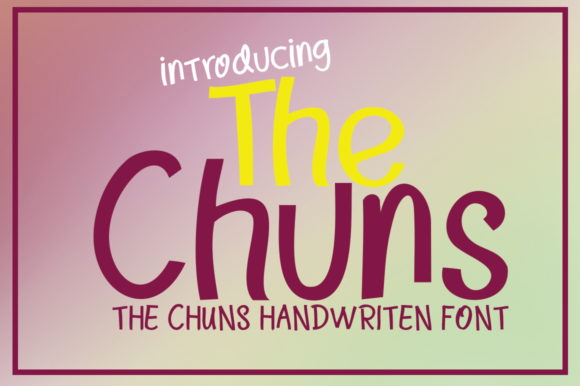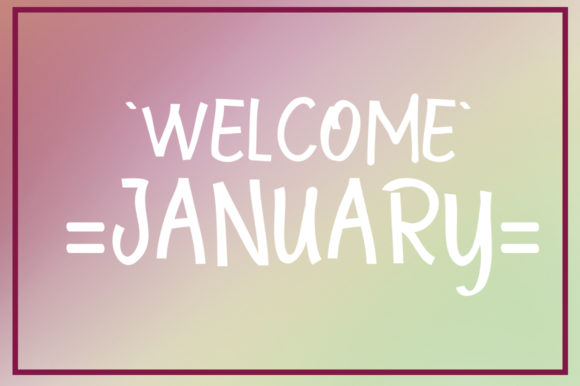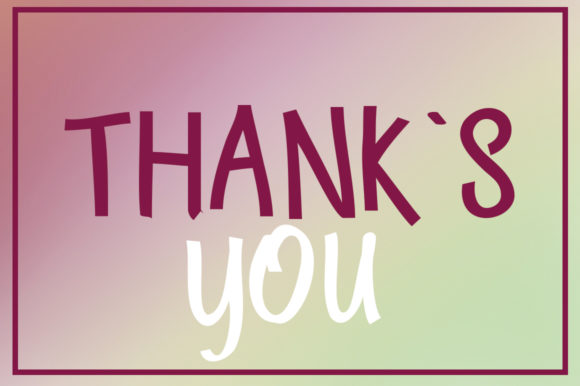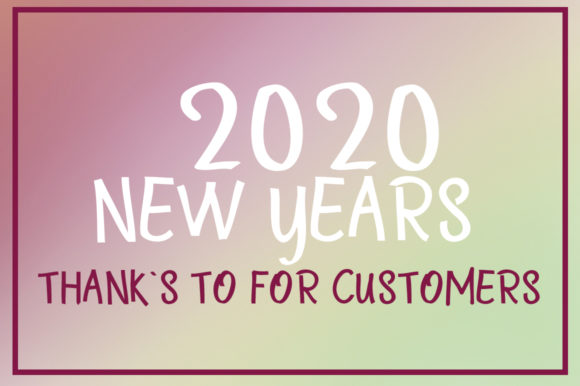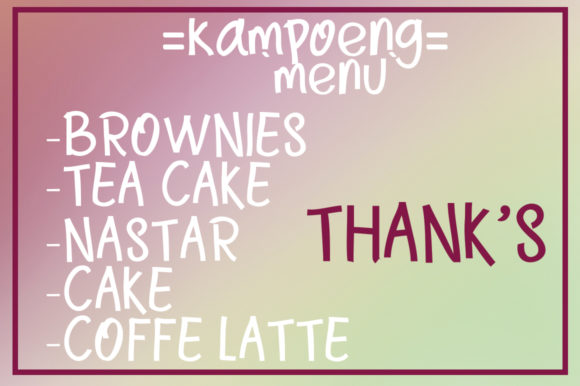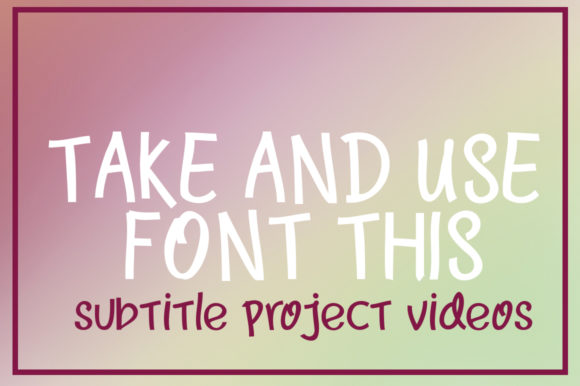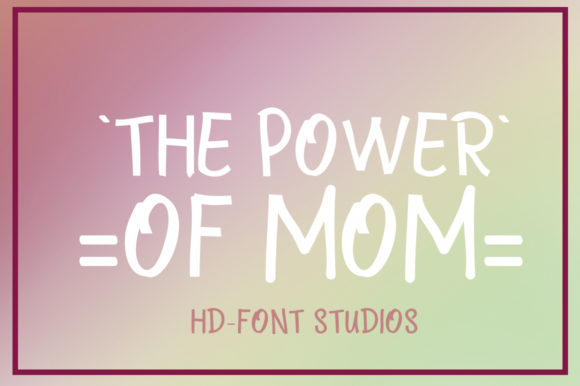
HomeScript FontsThe Chuns Font Script Fonts The Chuns Font FacebookXPinterestWhatsApp The Chuns Font Poster 2 The Chuns Font Poster 3 The Chuns Font Poster 4 The Chuns Font Poster 5 The Chuns Font Poster 6 The Chuns Font Poster 7 About The Chuns Font The Cuns is a cute hand-written font that will add an authentic, relaxed feel wherever it is used. DOWNLOAD ON CREATIVE FABRICAThis font is sold and delivered by Creative Fabrica. Font Canyon may earn a commission if you buy through this link. People also explored Astrofly Font Grand Quentin Duo Font Skinnytoon Font Ashemark Font Moebius Font Lezerno Rolington Font Lothario Font Baby Blue Bella Canvas 3001 Tee Mockup 316 0 TagsThe Chuns Font Previous articleCatline FontNext articleChunkey Font LEAVE A REPLY Cancel reply Comment: Please enter your comment! Name:* Please enter your name here Email:* You have entered an incorrect email address! Please enter your email address here Website: Save my name, email, and website in this browser for the next time I comment. Personal Use Free The Royal Personal Use Free Read more about this font Cintya Personal Use Free Read more about this font White Rose Personal Use Free Read more about this font Waturaden Personal Use Free Read more about this font BLOG Fonts That Capture the Spirit of New York City New York City is more than just a place—it’s an experience, a rhythm, a visual language... The 10 Best Handwriting Fonts to Add Personality to Your Designs Modern Sans-Serif Fonts That Brands Love in 2025 Best Fonts for YouTube Videos: Make Your Thumbnails Stand Out